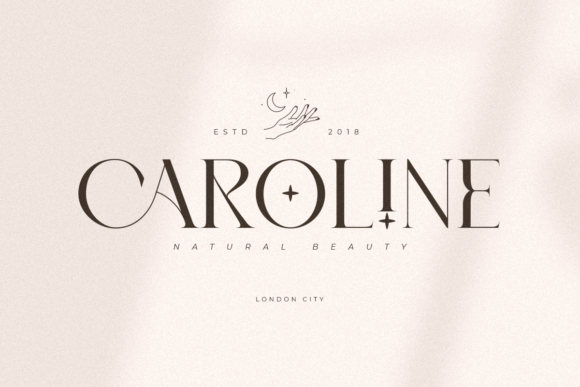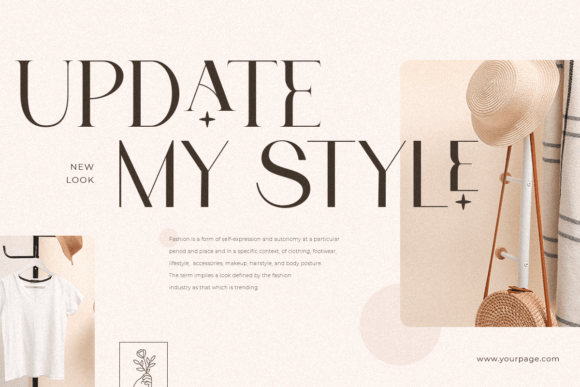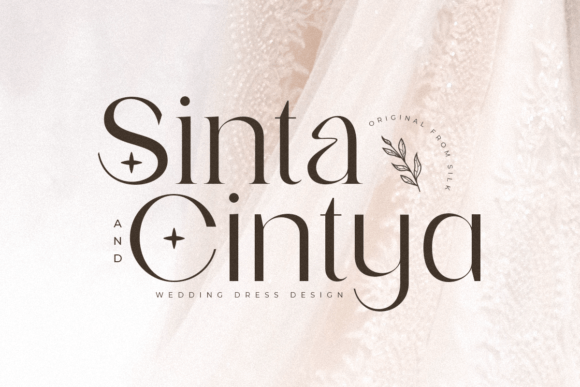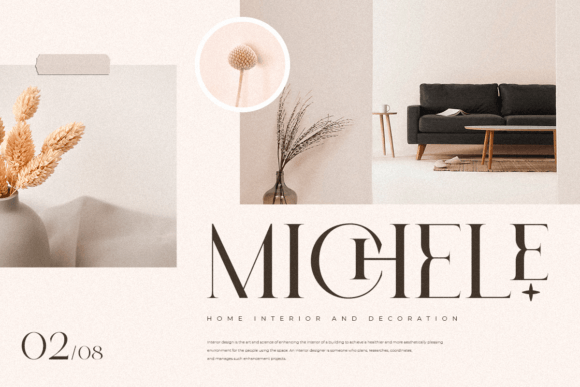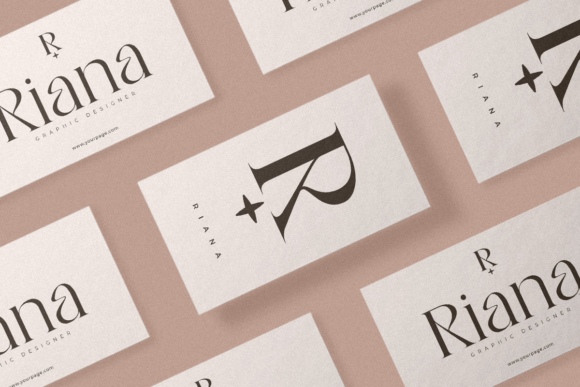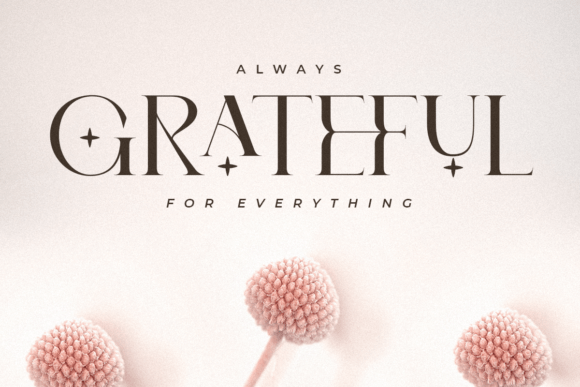
Introduction to Roomy Font
Roomy is a modern and stylish serif font that marries clean lines with subtle curves for a contemporary look.
Perfect for editorial designs, luxury branding, and web typography, its sophisticated presence enhances every composition Choose Roomy for a touch of modern elegance in your creative projects.